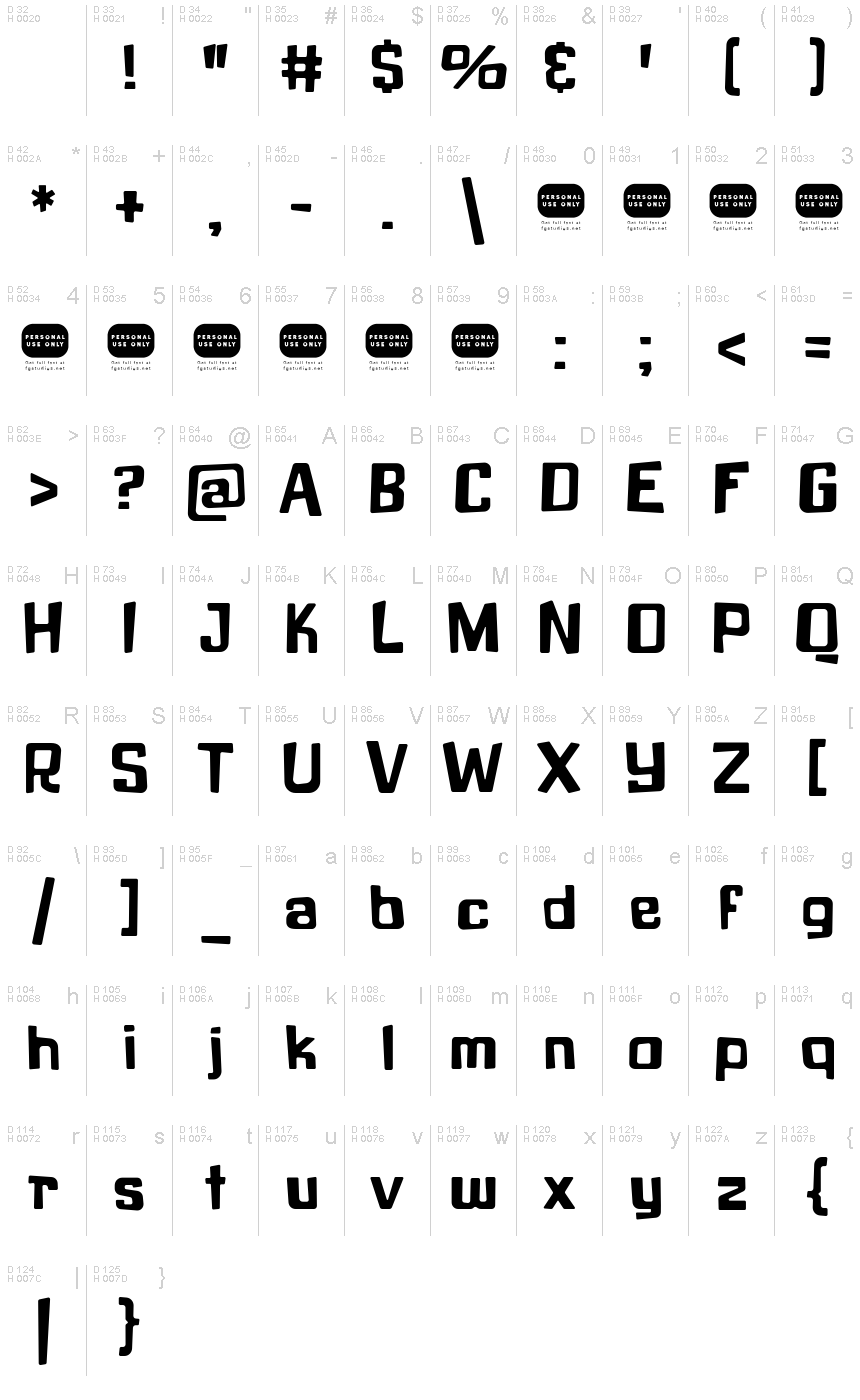
Zolla
Zolla by FG Studios is a captivating display font that exudes a whimsical, cartoon-inspired aesthetic. With its bold, geometric letterforms and striking visual impact, this font commands attention and elicits a sense of playfulness. The clean, streamlined design and distinctive character shapes make Zolla an eye-catching choice for creative projects.
This versatile font can elevate a variety of design applications, from branding and packaging to editorial layouts and digital interfaces. Its unique personality lends itself well to playful, lighthearted designs, making it a suitable option for children's products, advertising campaigns, and social media content. Zolla's versatility also extends to more formal settings, where its contemporary flair can add a touch of modern elegance to headers, titles, and display text.